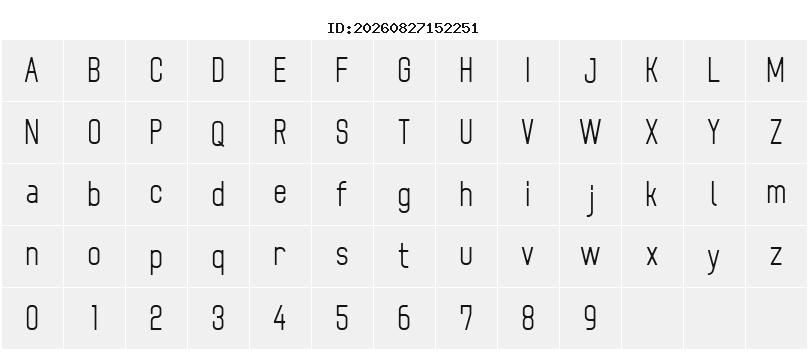
078MKSDMediumCondensed Preview
About 078MKSDMediumCondensed.ttf
078MKSDMediumCondensed.ttf is a modern, elegant sans-serif font designed for ultimate readability and visual harmony. Perfect for branding, headlines, web design, and print materials.